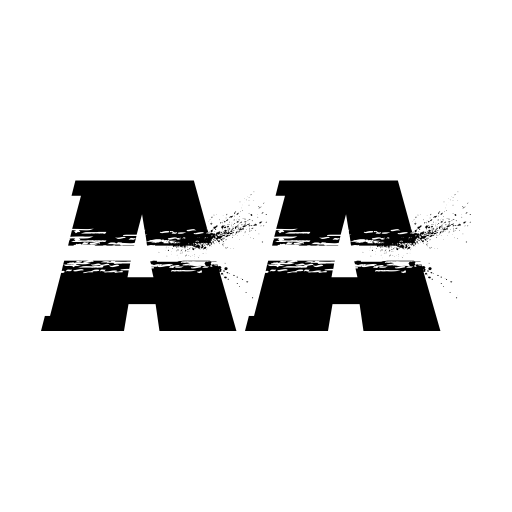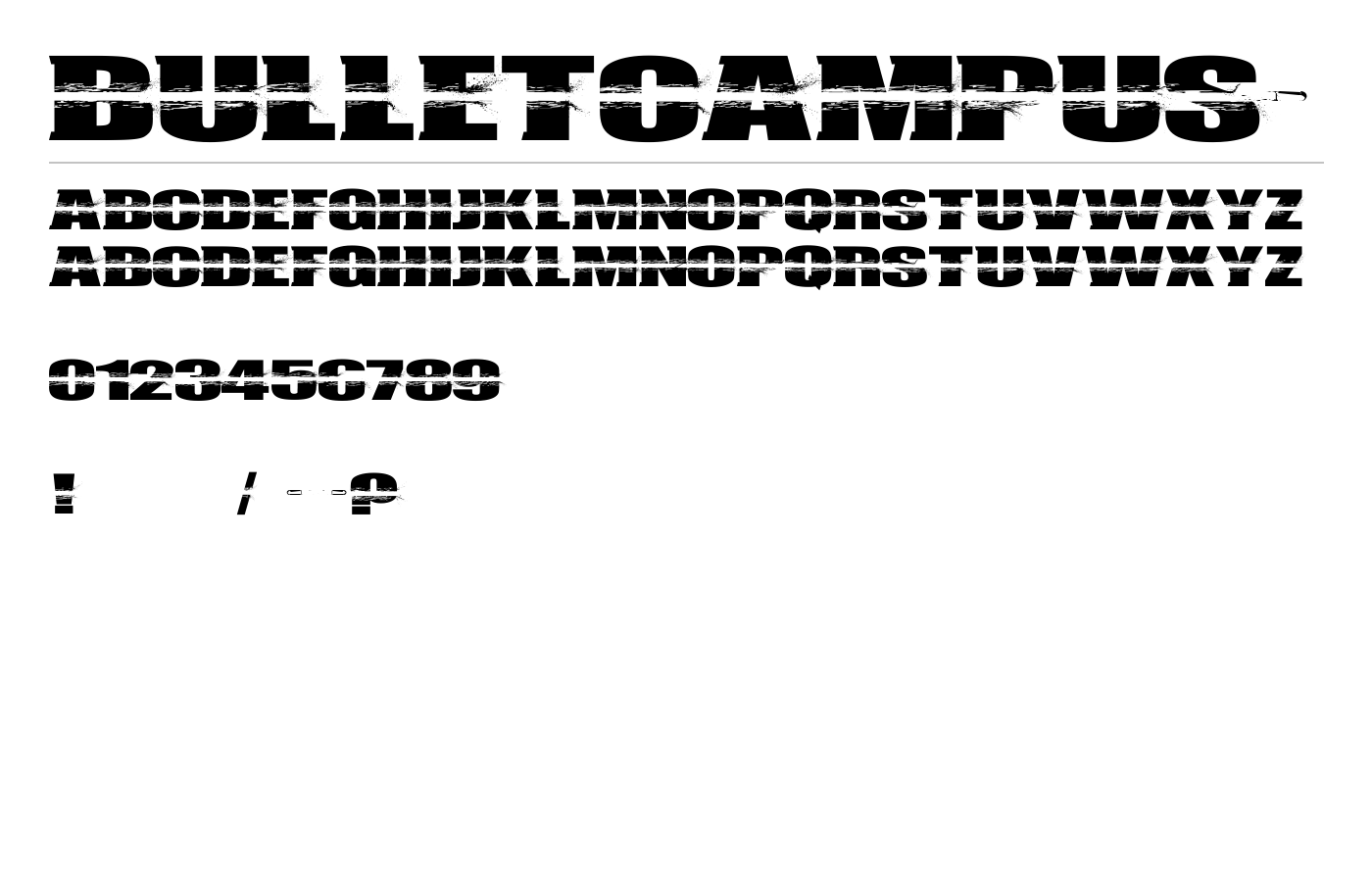
BULLETCAMPUS is a bold, wide sans serif font with a strong industrial feel, characterized by heavy weight and sharp edges combined with a distressed, grunge effect that creates a raw and edgy look. Its uppercase letterforms are solid and impactful, while the horizontal streaks running through the characters give it a worn, tactical vibe perfect for designs that want to convey toughness, rebellion, or urban grit. This font works best in striking headlines, logos, or posters where an aggressive and attention-grabbing style is needed.
BULLETCAMPUS> Font
About BULLETCAMPUS> Font